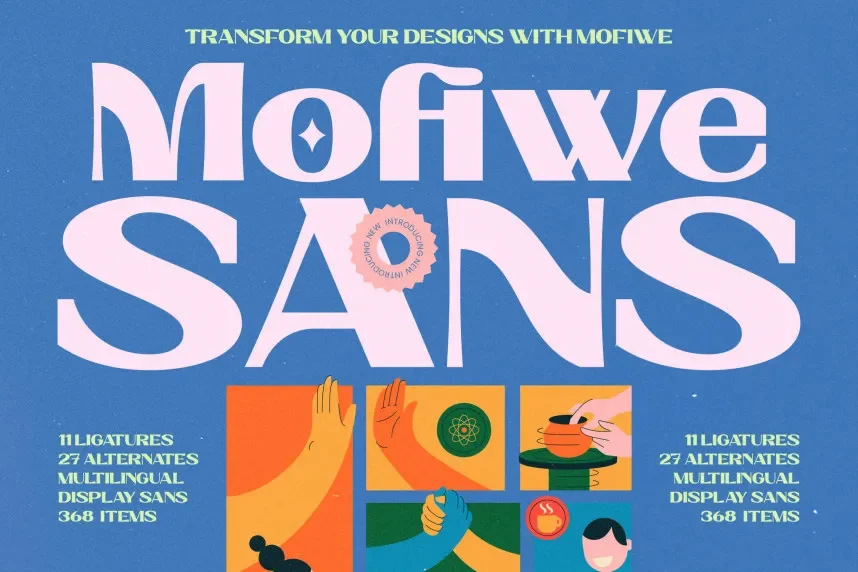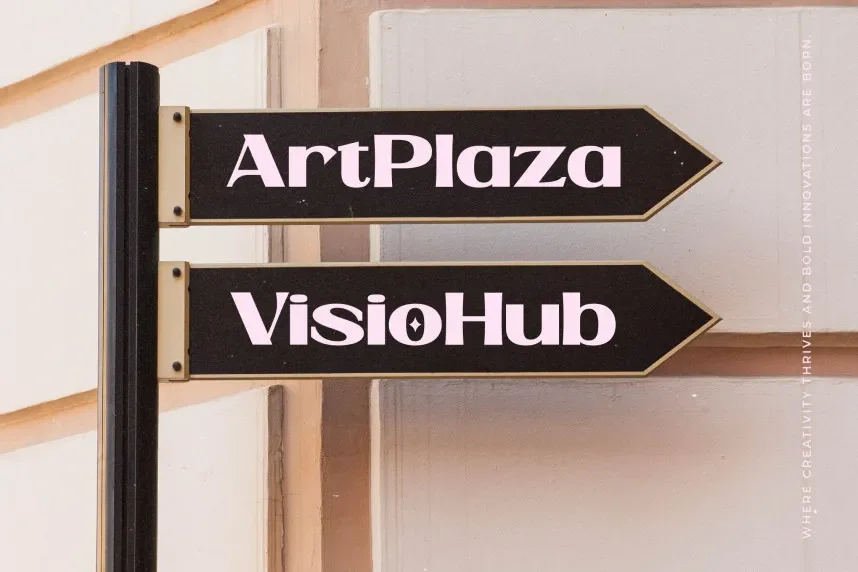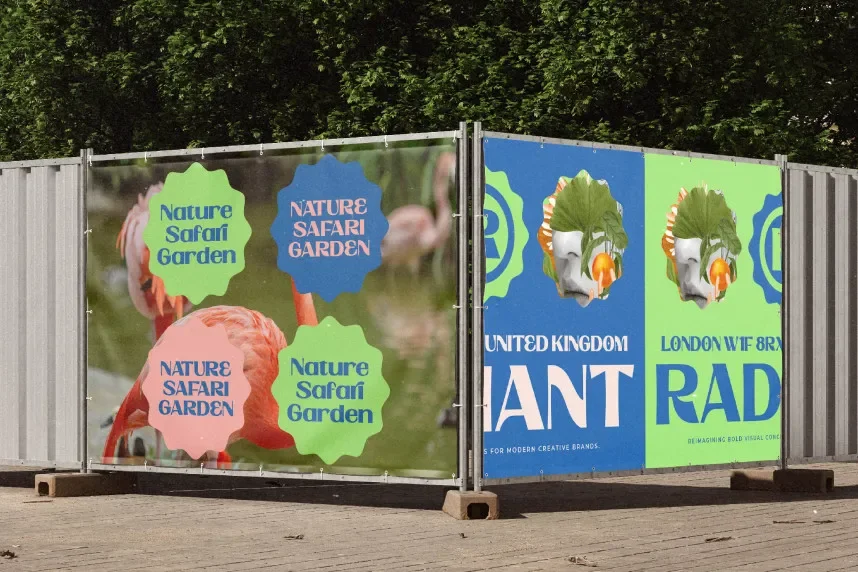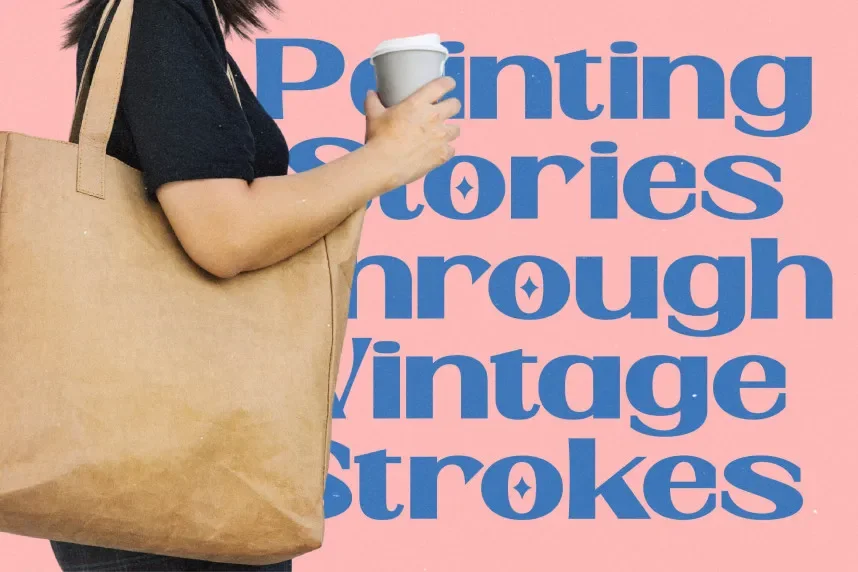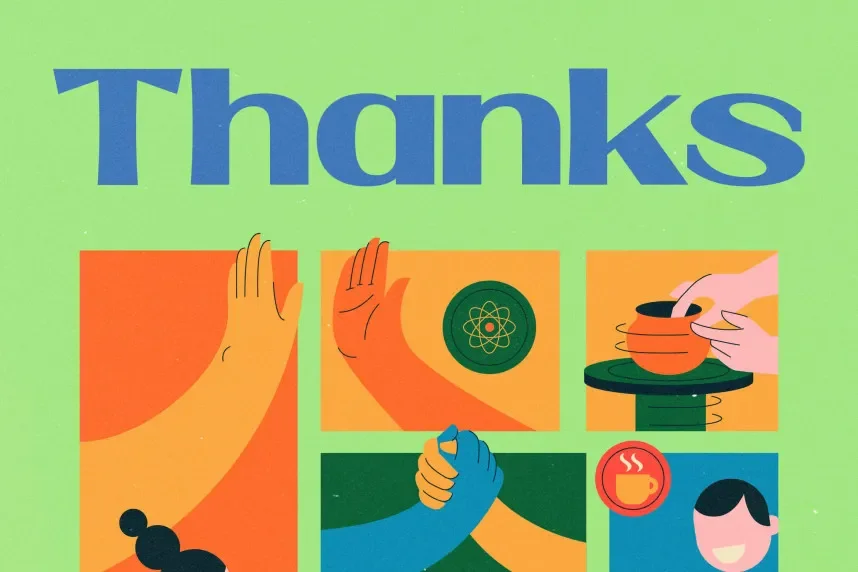
Mofiwe Sans Font is designed for projects that require clear text and consistent spacing. Designers often face readability problems when switching between screen and print, and a stable sans-serif typeface helps maintain visual clarity.
Mofiwe Sans is a modern sans-serif font with balanced proportions and smooth curves. The letterforms feature uniform stroke widths, open apertures, and a steady x-height. These traits improve legibility in paragraphs, captions, and interface elements. The font maintains a neutral tone, making it adaptable across many design contexts without drawing attention away from content.
This typeface is commonly used in branding systems, marketing materials, website body text, and presentation slides. It also performs well in UI design, where predictable spacing and clean shapes are essential. Mofiwe Sans pairs well with display fonts for headlines or serif fonts for editorial contrast.